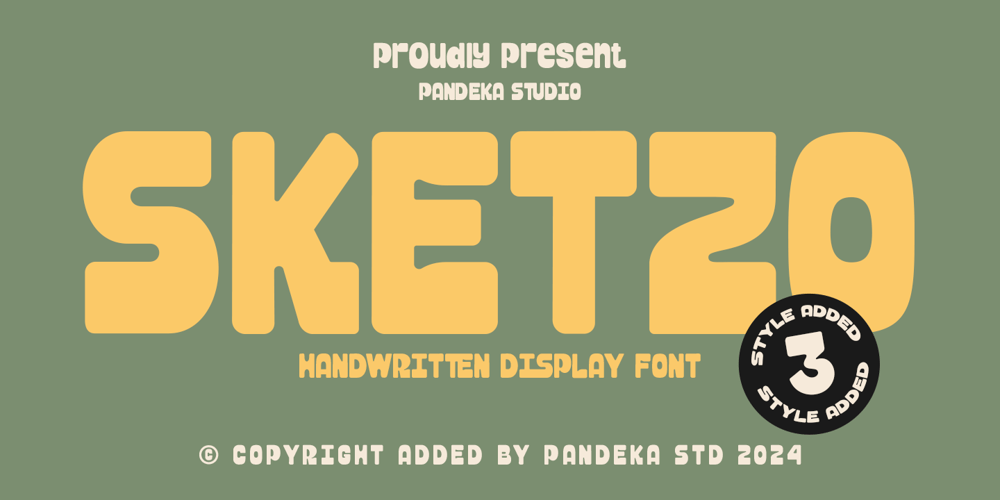
Sketzo Font Family was designed by Sagara Nararya and published by Pandeka Studio. Sketzo contains 3 styles and family package options. Introducing Sketzo – Handwritten Display Font with Playful EnergySay hello to Sketzo, a handwritten display font full of character and charm! This font comes with 3 styles: Regular, Outline, and Shadow, making it versatile and perfect for a variety of creative projects.Designed to mimic the fun and lively strokes of hand-drawn sketches, Sketzo brings a playful and creative vibe to your designs. With its natural texture and organic flow, this font feels personal, approachable, and ideal for designs that need a friendly and unique touch.Whether you’re working on children’s books, posters, packaging, branding, or any creative project that needs a burst of energy, Sketzo has got you covered. Its versatility and boldness make it the perfect choice for adding personality to your designs.What’s Included: Main Files formats 3 Styles: Regular, Outline, and Shadow Full Character Set: Uppercase, lowercase, numbers, symbols, and punctuation Easy to Use: Works on both PC & Mac Compatible with Adobe Illustrator, Photoshop, Microsoft Word, Canva, and other design software PUA Encoded: Fully accessible without extra software Language Support: Danish, English, Estonian, Filipino, Finnish, French, Friulian, Galician, German, Gusii, Indonesian, Irish, Italian, Luxembourgish, Norwegian Bokmål, Norwegian Nynorsk, Nyankole, Oromo, Portuguese, Romansh, Rombo, Spanish, Swedish, Swiss-German, Uzbek (Latin)Bring your ideas to life with the lively and playful strokes of Sketzo! Whether you want to create an eye-catching poster, a whimsical brand identity, or fun packaging, this font will make your designs unforgettable.Follow us on Instagram or visit our website for more updates and creative inspiration.Brought to you by Pandeka Studio